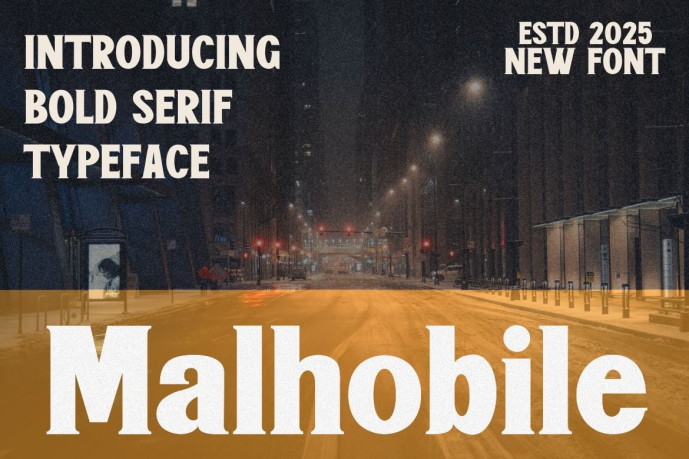
Malhobile Font
Designer: Philo_Yard
Malhobile Font – Serif Bold Typeface, a modern serif typeface designed for timeless elegance and visual storytelling. Its crisp contrast and subtle ligatures make it ideal for branding, fashion editorials, and luxury packaging. Crafted with cinematic grace, this typeface evokes sophistication and aesthetic harmony in every composition.